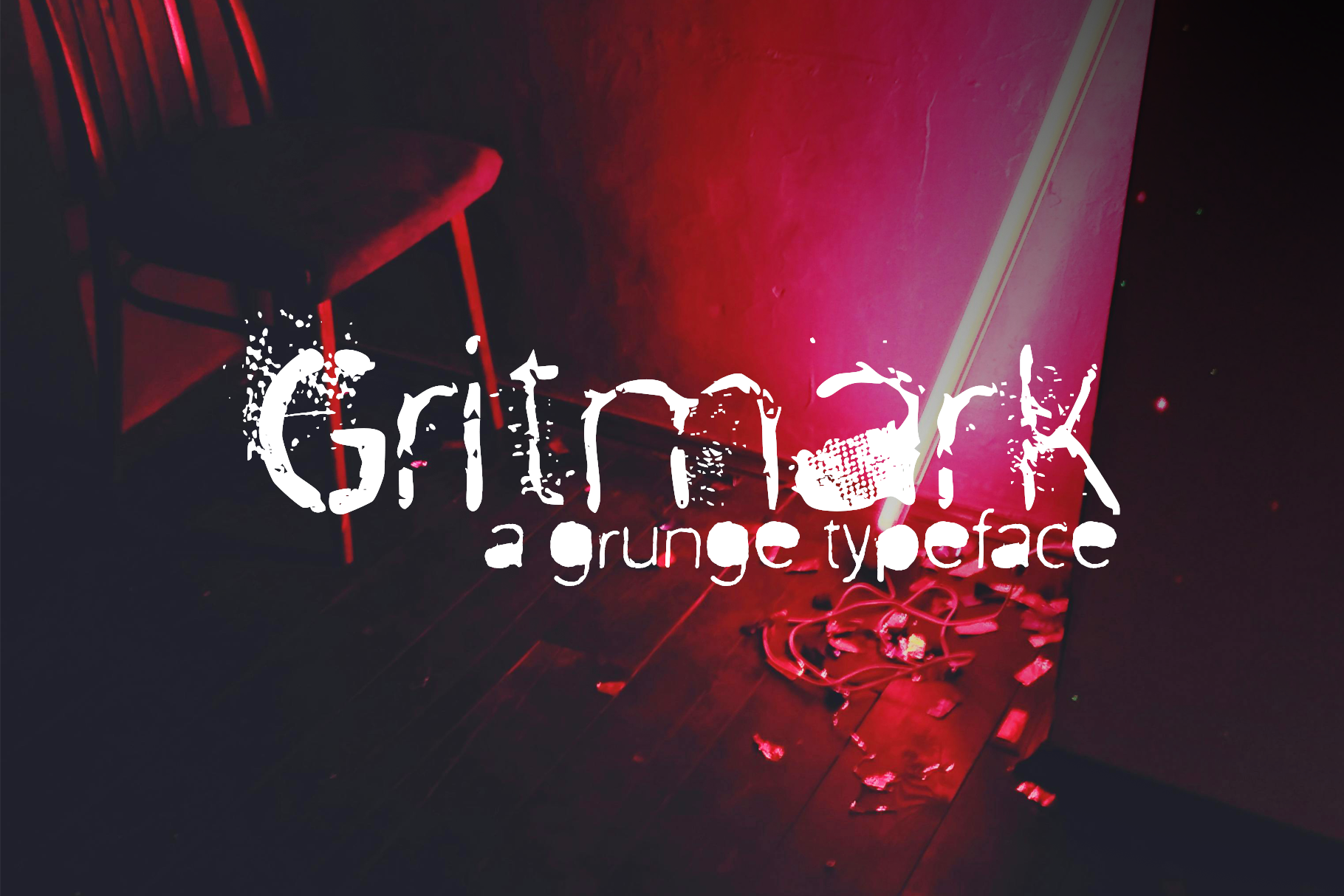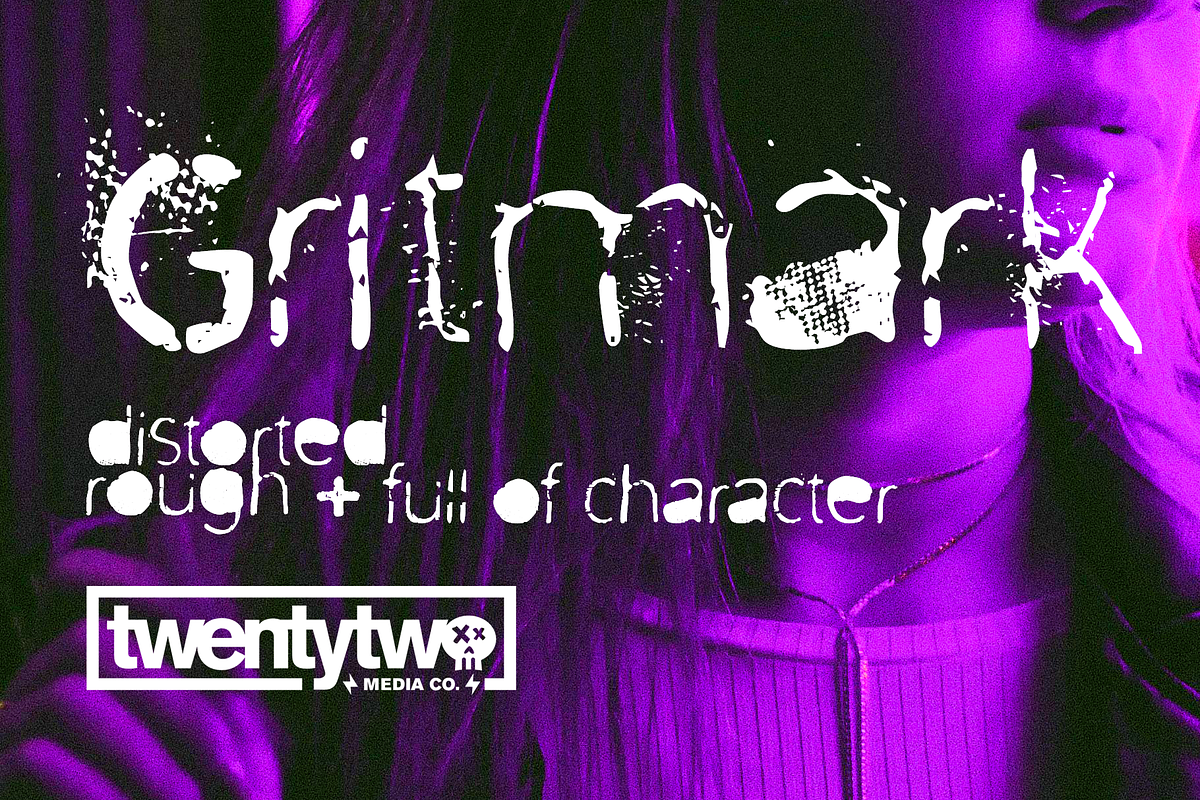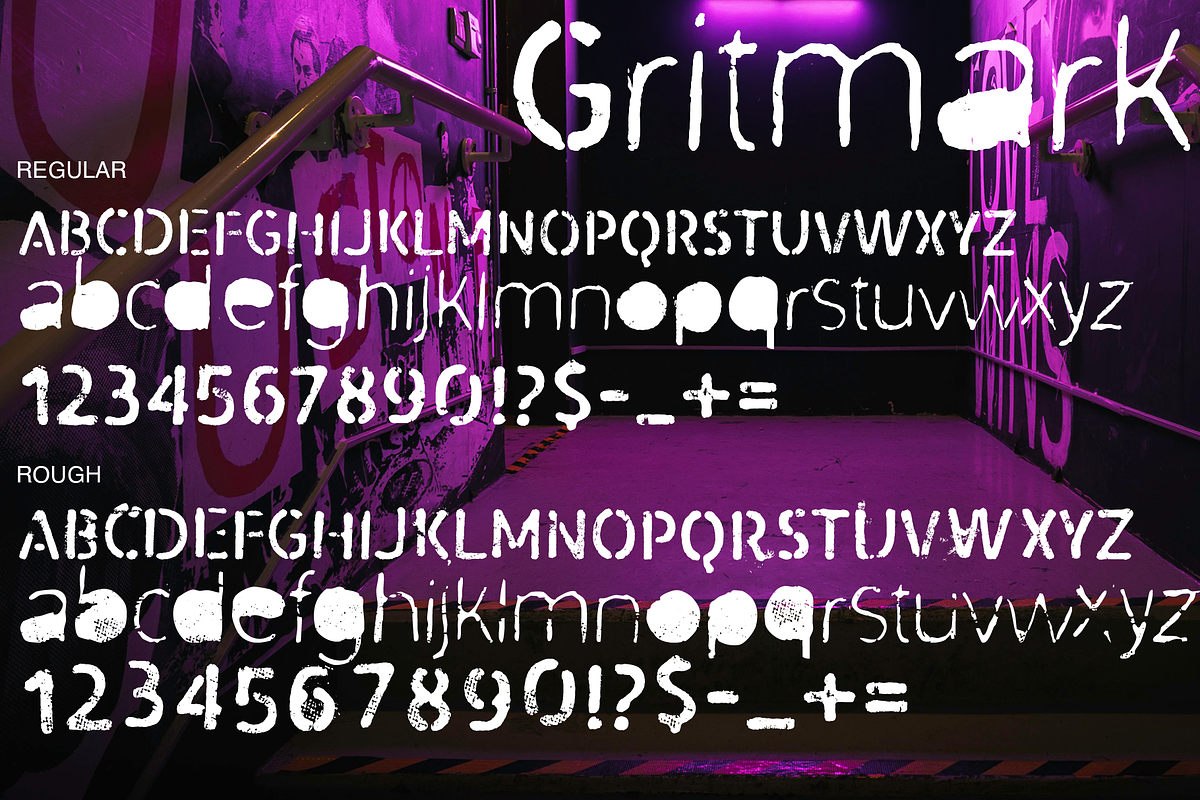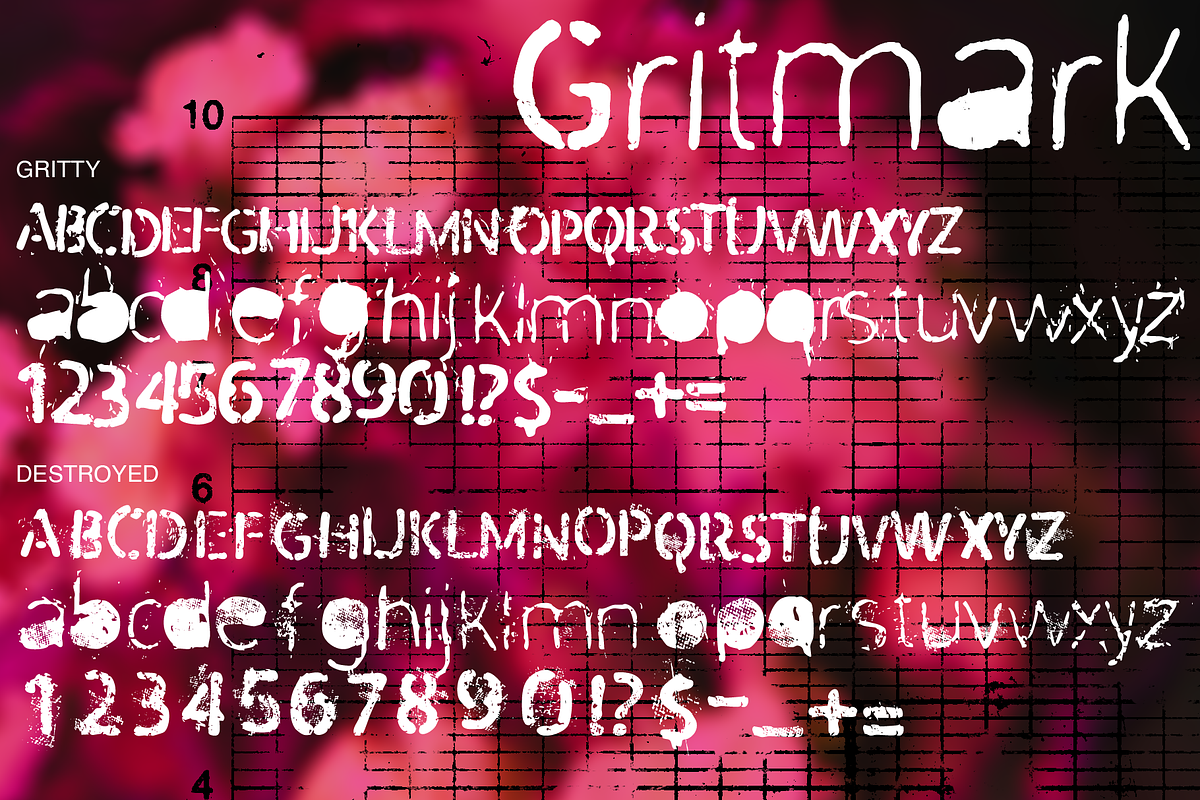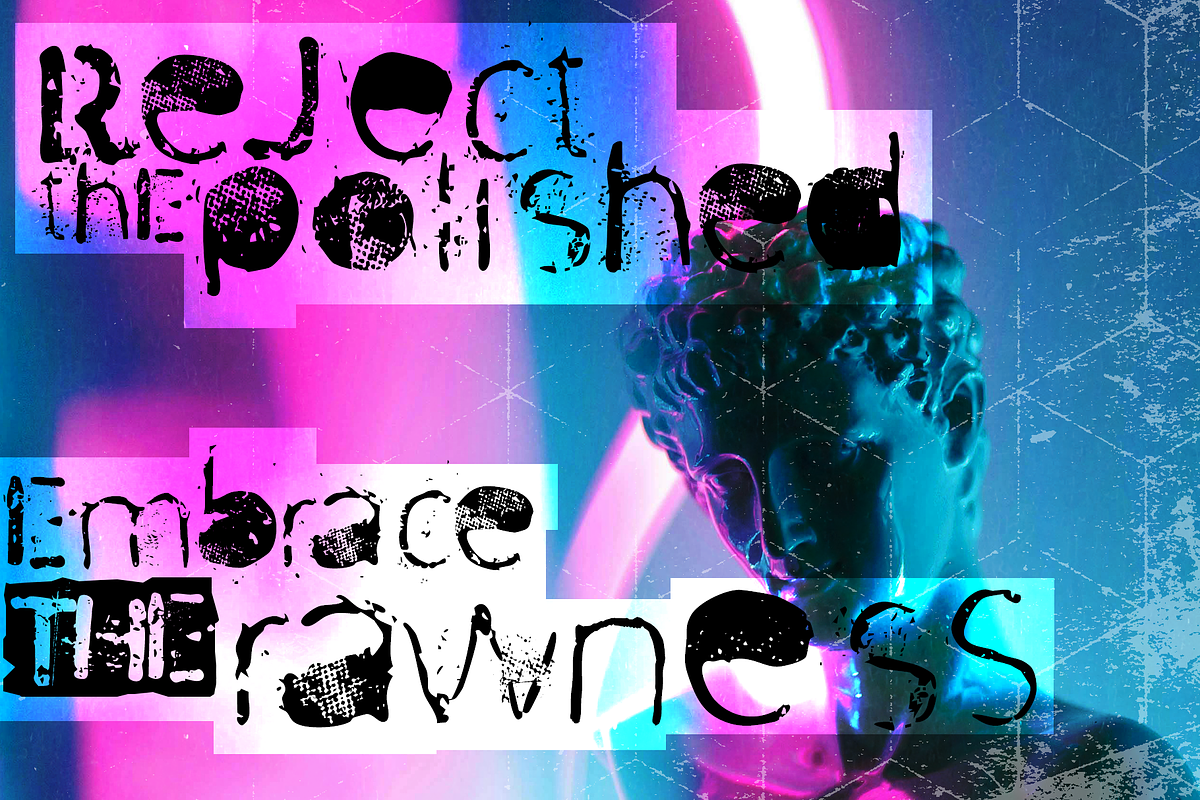
Gritmark – A Raw & Gritty Typeface
Unleash the raw power of Gritmark, a bold and chaotic grunge typeface built for those who embrace imperfection and distortion. Designed to break free from the clean and polished, this font delivers an authentic underground aesthetic perfect for edgy branding, music covers, posters, and rebellious designs.
4 Distinct Styles for Maximum Impact:
🔥 Regular – A balanced grunge look yet readable aesthetic. 🔥 Rough – Adds a deeper level of texture and erosion, giving your text a rugged, weathered feel. 🔥 Gritty – Intensifies the distressed elements with heavy texture and splatter, ideal for high-impact designs. 🔥 Destroyed – The ultimate in chaotic grunge—broken, fragmented, and raw, perfect for punk, horror, and experimental visuals.
Perfect For: ✔ Music & band posters ✔ Urban streetwear branding ✔ Grunge, punk, and metal album covers ✔ Distressed editorial layouts ✔ Horror and underground zine aesthetics
Bring the grit, chaos, and attitude of Gritmark to your next project. Whether you’re designing for music, streetwear, horror, or underground brands, this typeface will leave a lasting impression.